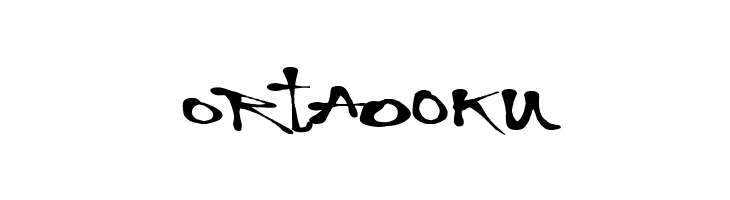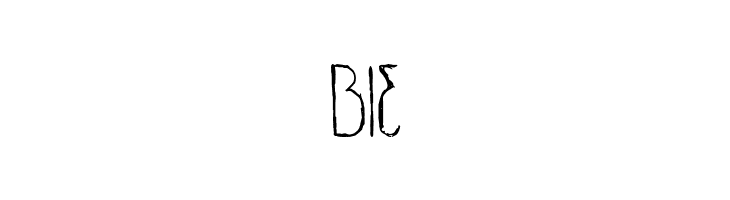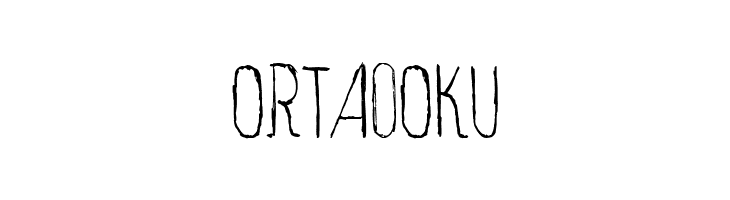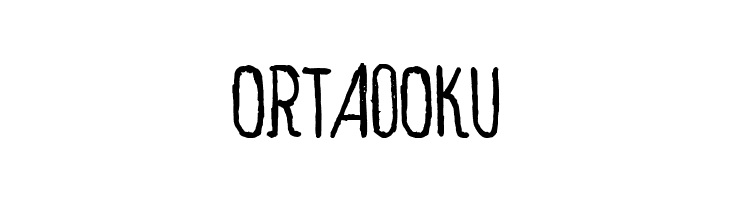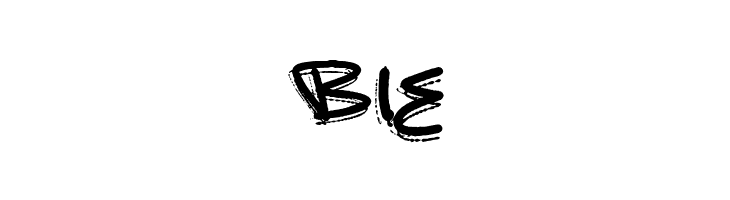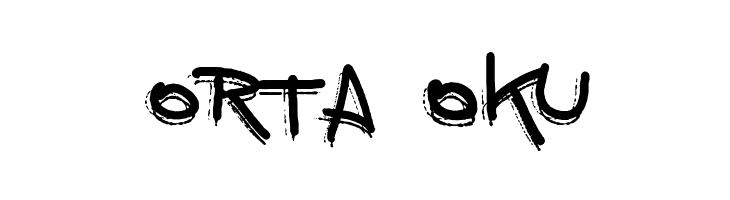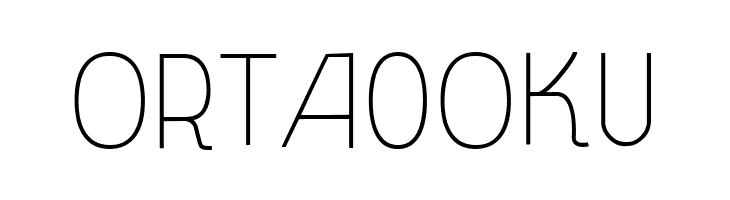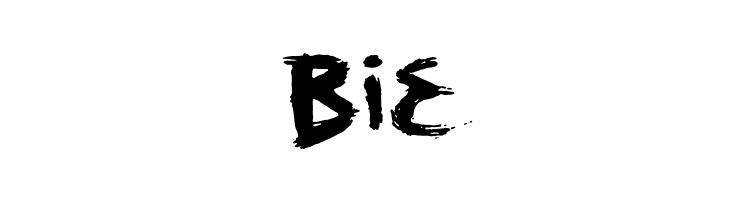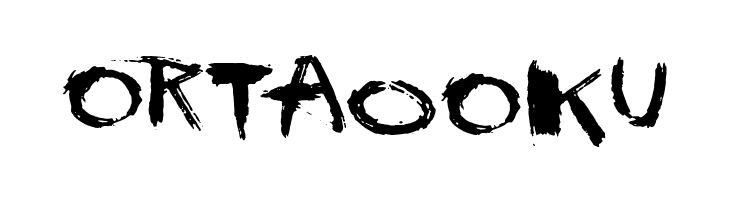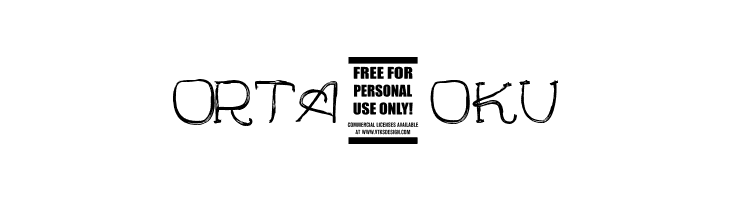
• vtks love love
A bold, textured font with a hand-drawn, artistic style.
• vtks mint
A bold, graffiti-inspired font with a rough, hand-drawn appearance.
• Vtks Noba
• Vtks Personal
A dynamic, handwritten-style font with artistic flair.
• vtks scream
A bold, distressed font with a rough, hand-painted style.
• VTKS SIGN OF TIMES
A distressed, hand-drawn font with a vintage and rustic appeal.
• VTKS SIGN OF TIMES bold
A bold, hand-drawn font with a vintage, distressed style.
• Vtks Street Vision
A bold, graffiti-inspired font with dynamic, flowing lines and an urban aesthetic.
• Vtks TotalFlexClean
• vtks unidade
A modern, geometric font with thin lines and creative character design.